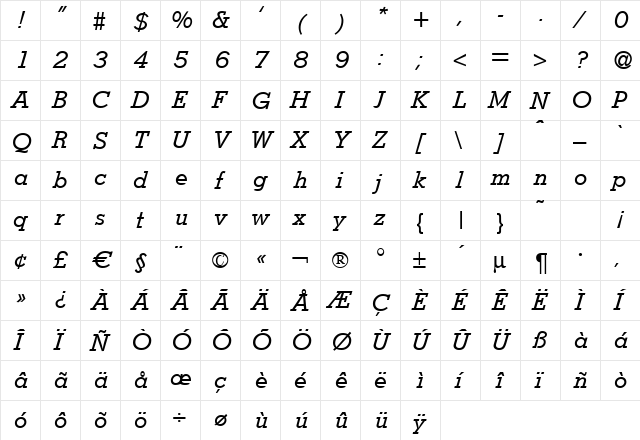
Stymie Italic
Design Context for Stymie Typeface
Stymie is a composed and adaptable typeface that performs quietly and consistently across a wide range of design contexts. The dynamic lean of this cut emphasises speed and emphasis in any layout.
Pro Tip: Try Stymie for annotation and caption copy alongside an upright companion — the contrast in angle creates a dynamic but ordered typographic system.